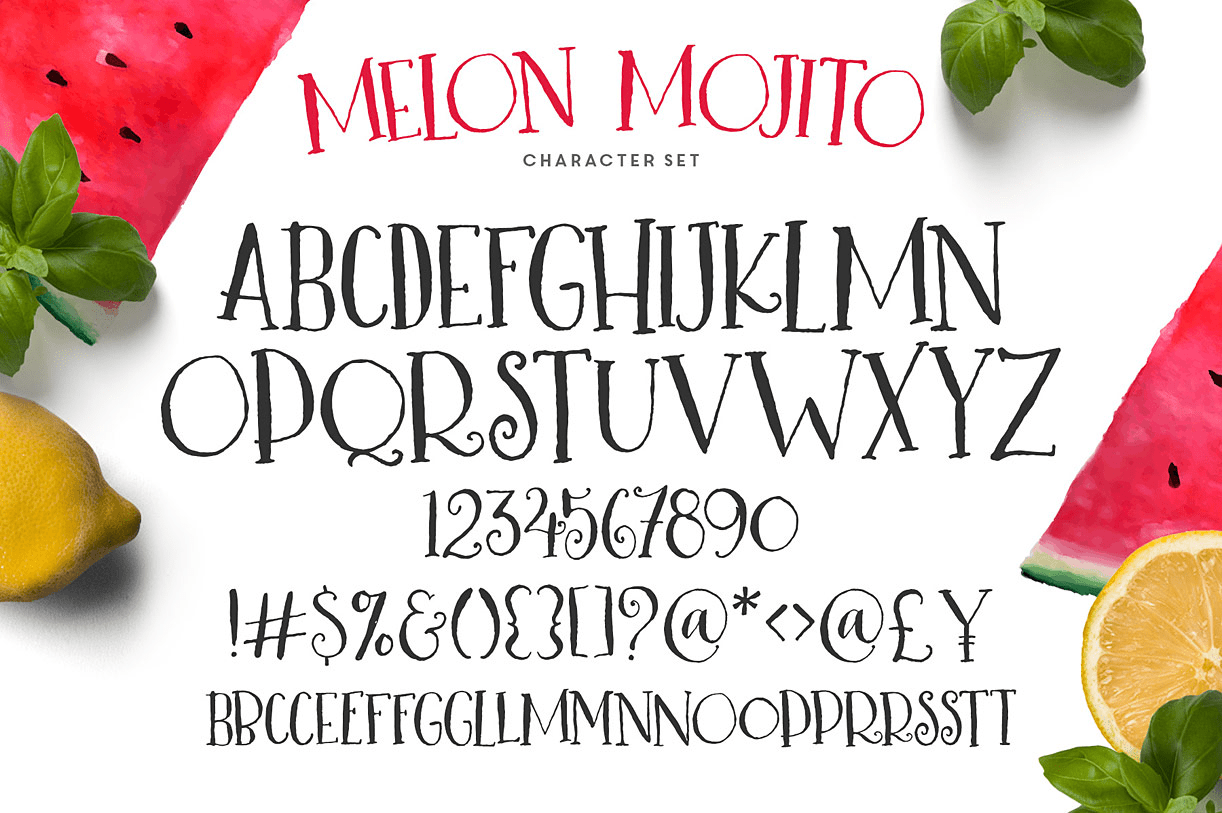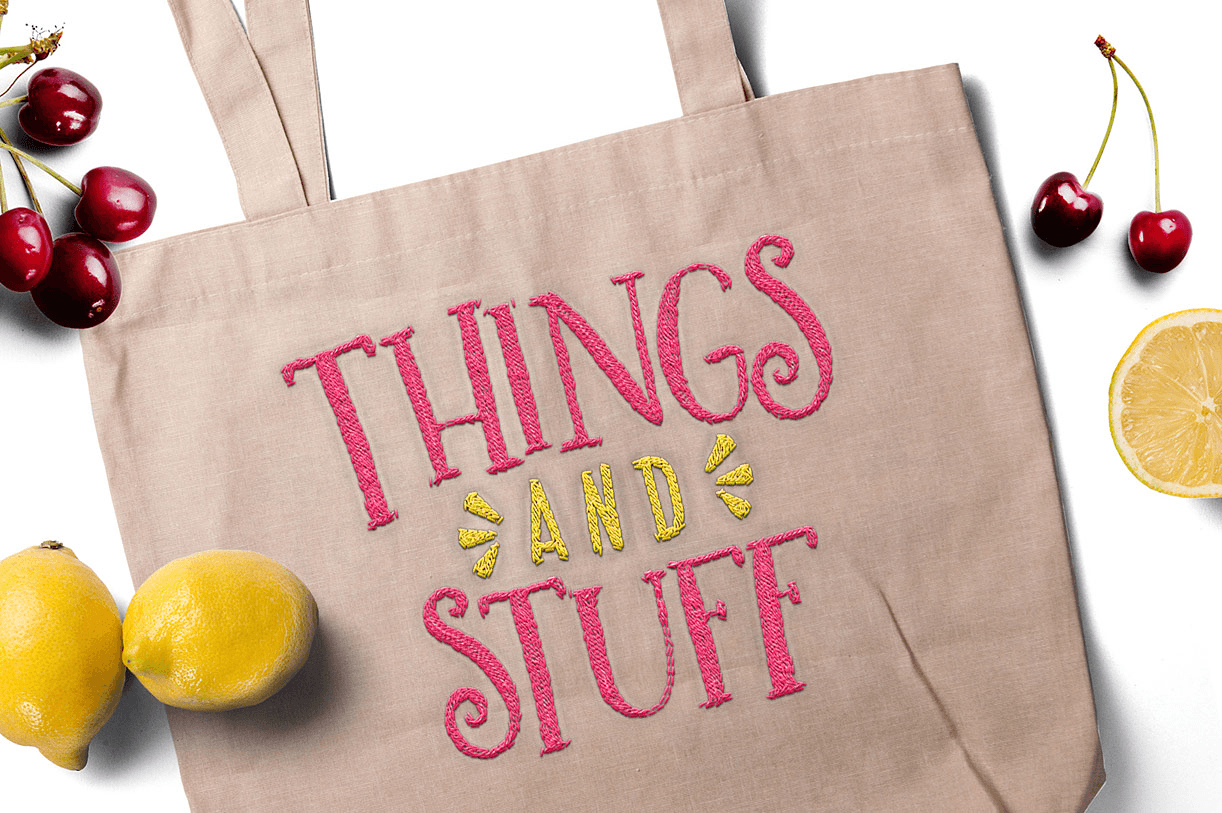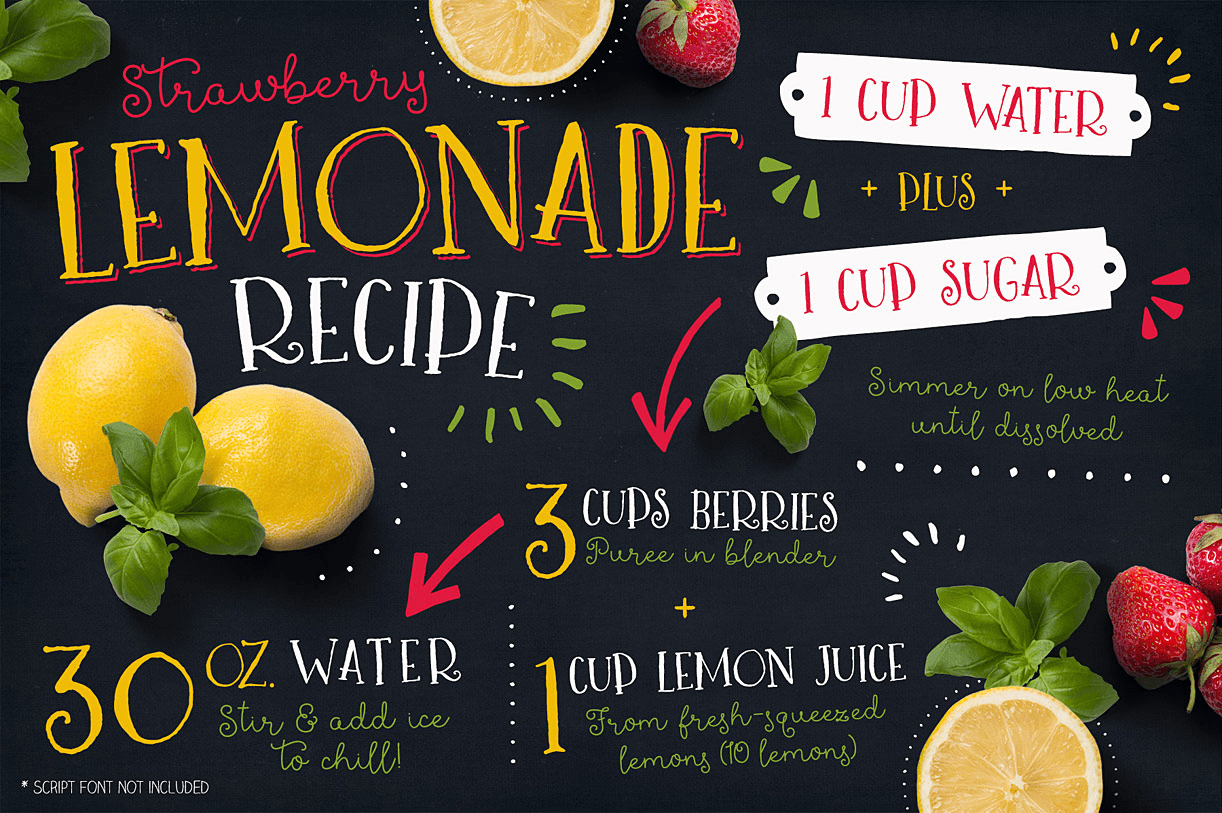
Looking for a fun typography font for summer, and some adorable graphics to go with it? Well look no further, \’cause I\’ve got you covered! 😉 Melon Mojito is a silly, juicy typeface, created with a calligraphy nib for a ragged, irregular feel, and that…